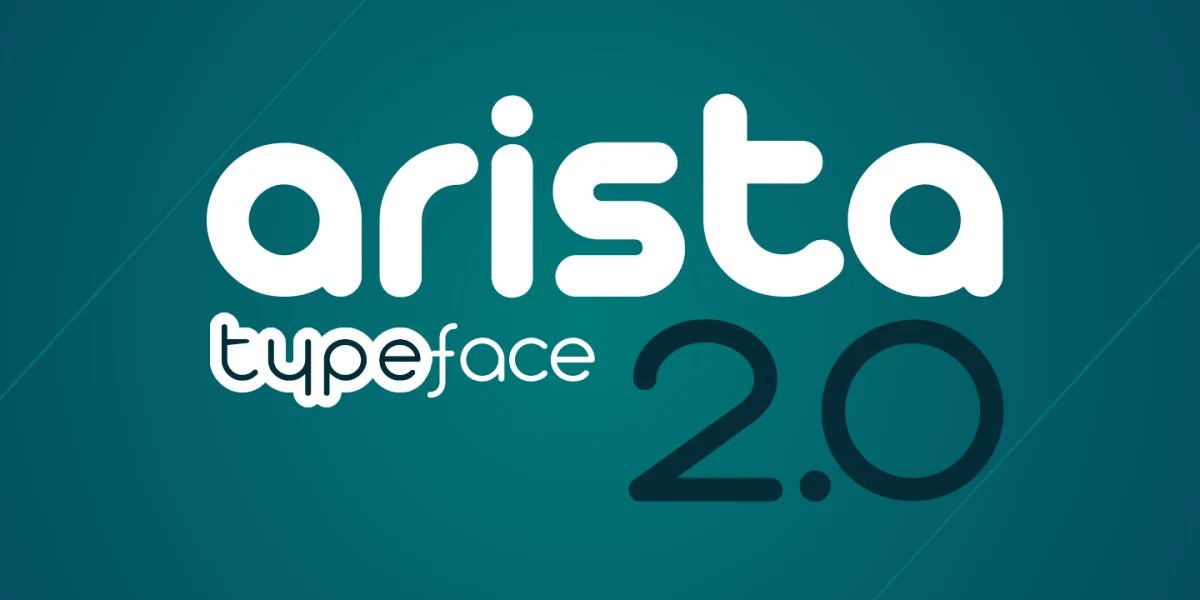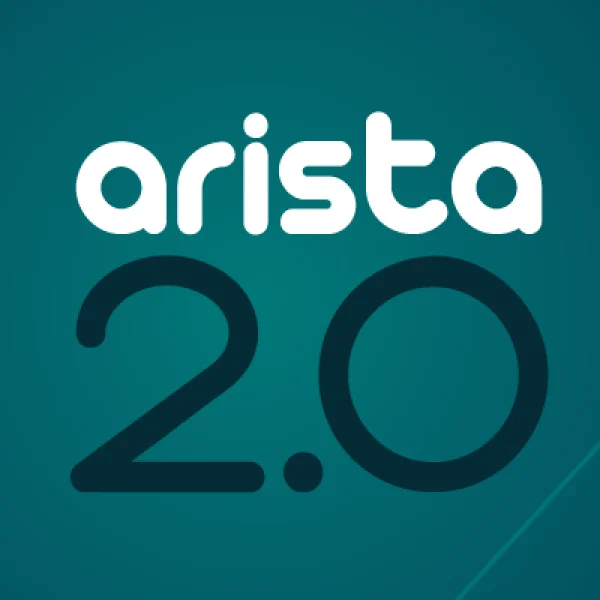
Arista is a soft round font, perfect for 2.0 logos and contemporary headlines. Arista 2.0 is the definitive release of Arista, with extra characters and corrected kerning. It includes a light version, a extrafilled version for 2.0 style fat borders, and an Alternate version with a lot of style changes.